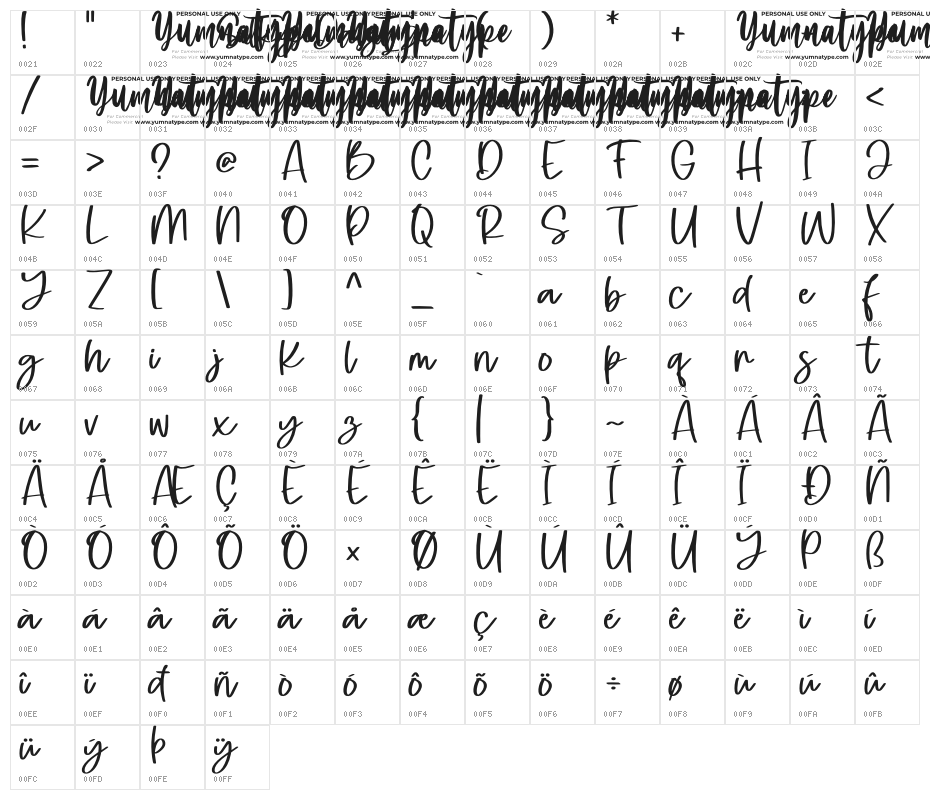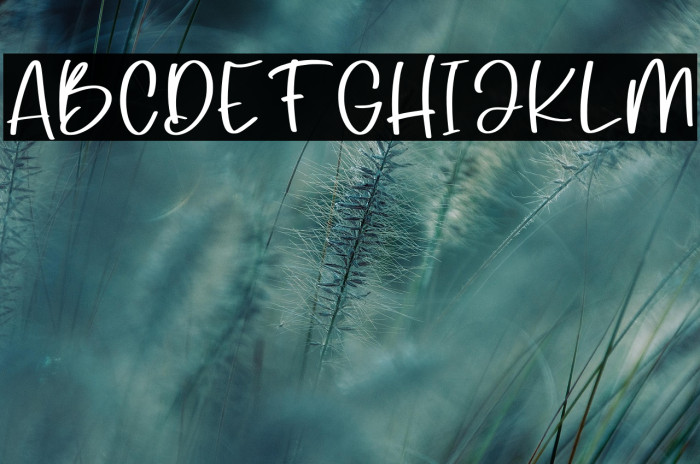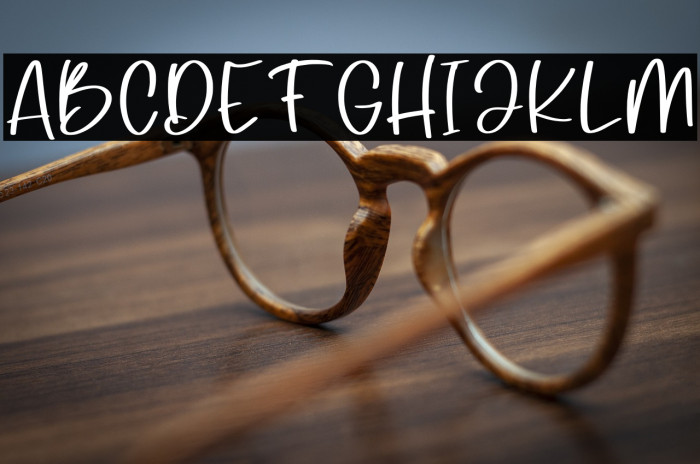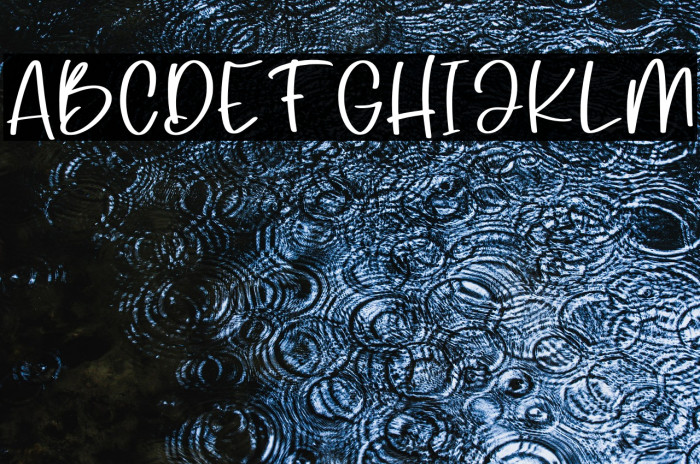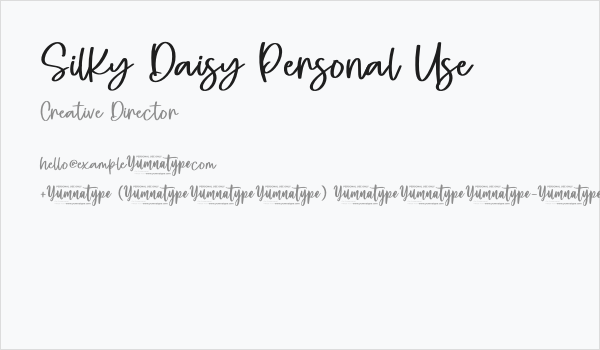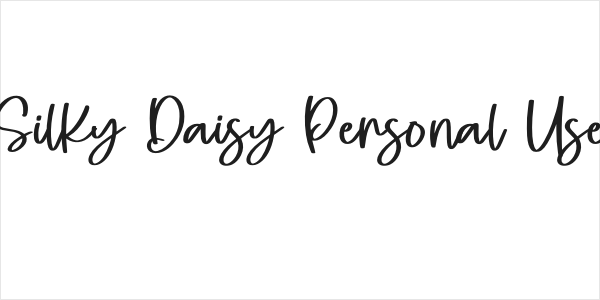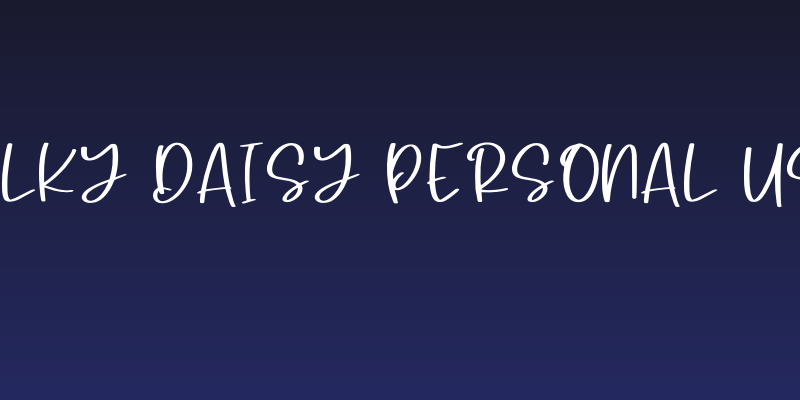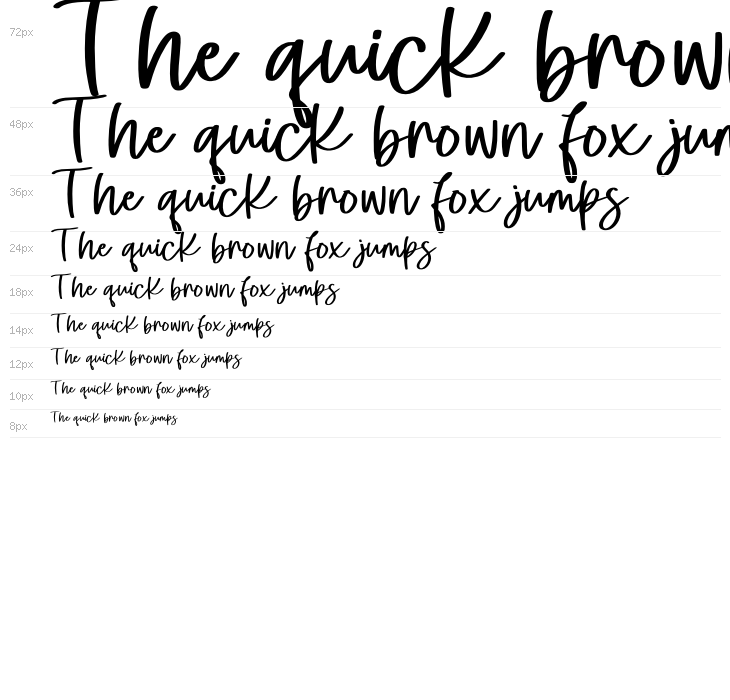
Silky Daisy Personal Use Font
Silky Daisy Personal Use Description
This font features a playful and dynamic handwritten style, characterized by its flowing and interconnected letterforms. The uppercase letters exhibit a casual elegance with slightly varying stroke widths, while the lowercase letters are more expressive, with some characters extending below the baseline. The font maintains a consistent rhythm, giving it a lively and energetic appearance. It includes a full set of uppercase and lowercase letters, numbers, and a selection of special characters, making it versatile for various design needs. The overall look is modern yet whimsical, suitable for projects that require a personal touch.
| Proposed Projects | Ideal for greeting cards, invitations, personal branding, and creative projects that require a whimsical touch. |